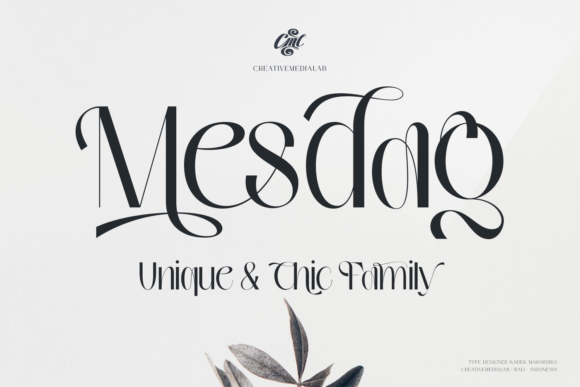
Introducing Mesdag Font, the epitome of elegance and uniqueness among display fonts. Created by the renowned creativemedialab, this font family embodies style like no other. Its distinctively shaped letters dance across your designs, adding a touch of sophistication and individuality. With Mesdag, your creations will radiate a distinct charm that sets them apart from the ordinary.
Mesdag's versatility knows no bounds. Its carefully crafted characters effortlessly complement a myriad of projects, yearning for a touch of exclusivity. Whether you're designing captivating website content, crafting eye-catching logos, or adding a dash of personality to your social media posts, Mesdag rises to the occasion. Its adaptability makes it a beloved choice among designers seeking to leave a lasting impression.
Unleash your creativity and embark on a journey of typographic exploration with Mesdag. Its PUA encoding opens up a world of possibilities, allowing you to effortlessly access the full range of glyphs and swashes. Discover a treasure trove of stylistic alternatives and ligatures, empowering you to infuse your designs with unparalleled depth and dimension.
Mesdag is more than just a font; it's an artistic expression that transforms your words into captivating visual masterpieces. Its meticulously designed curves and flourishes evoke a sense of timeless elegance, while its contemporary charm ensures it remains relevant in the ever-evolving digital landscape.
Don't settle for ordinary fonts that blend into the background. Embrace the allure of Mesdag and watch your designs come alive with a captivating allure that commands attention. Let your imagination soar as Mesdag elevates your creations to new heights of visual splendor.